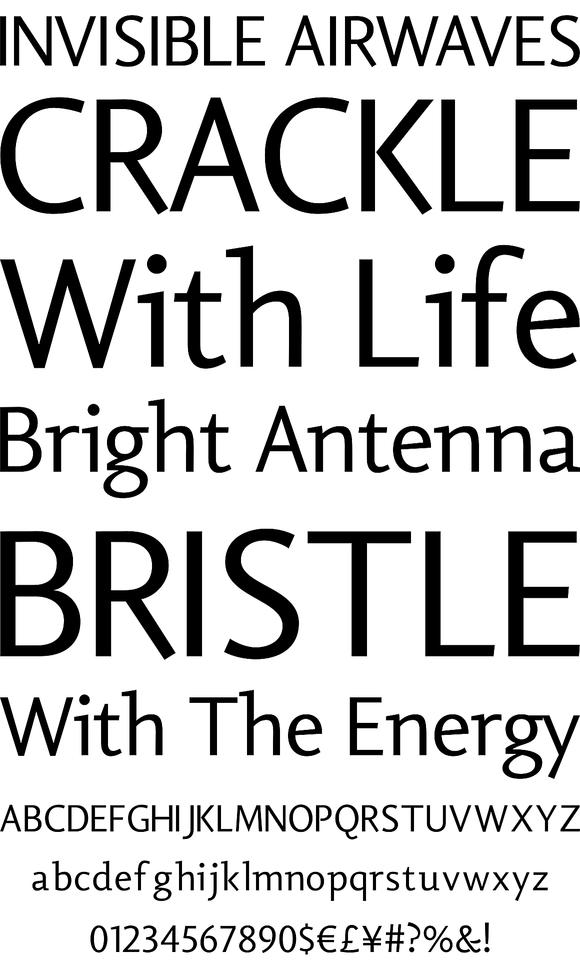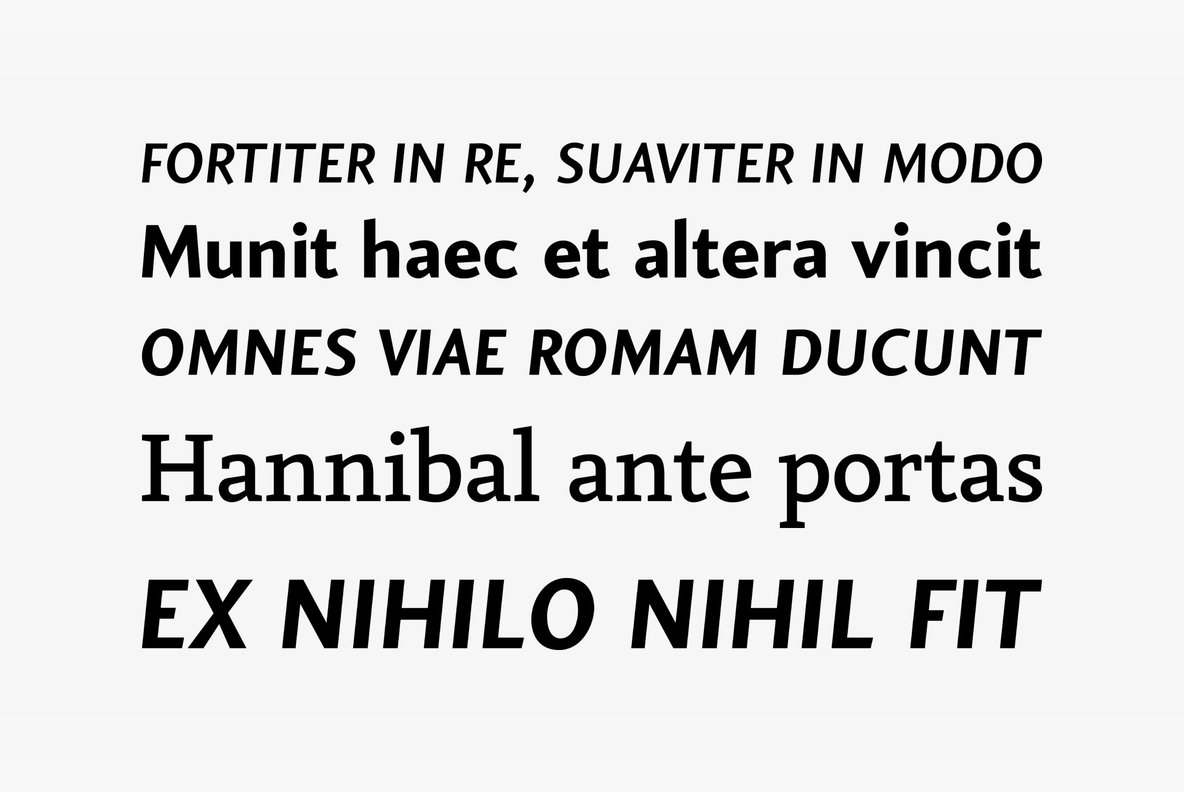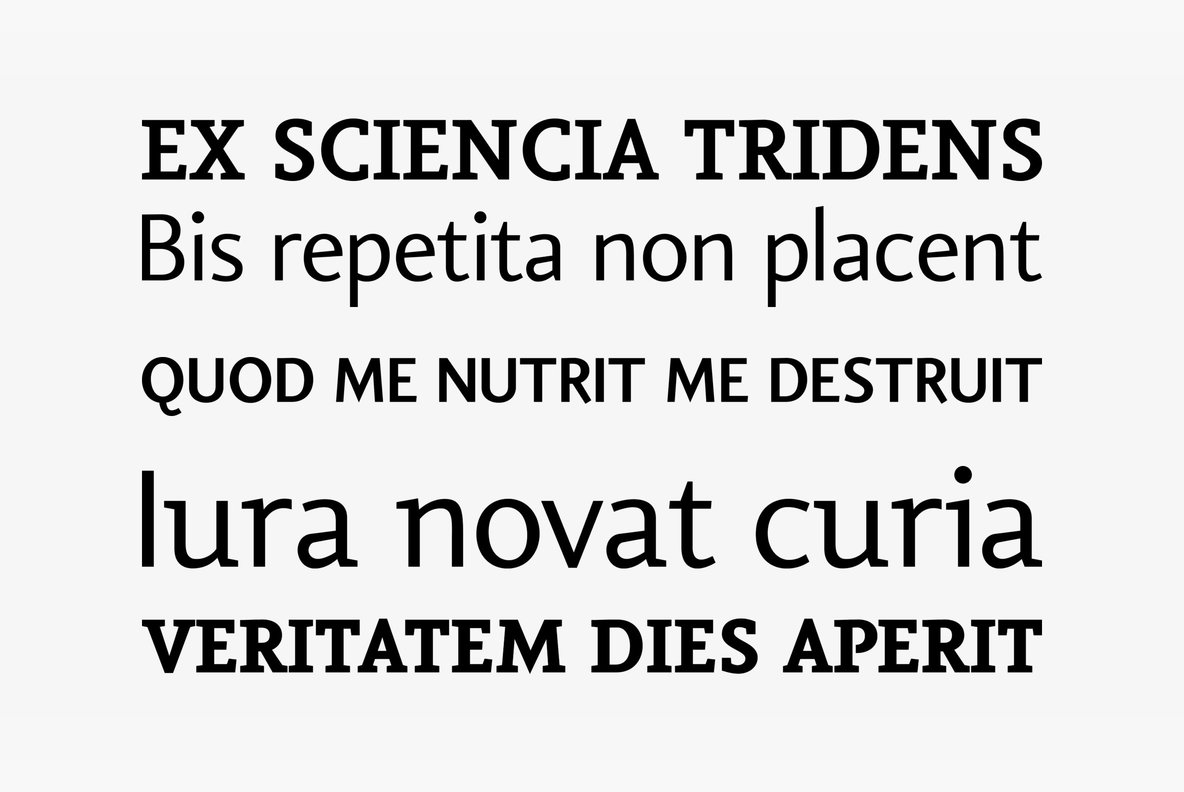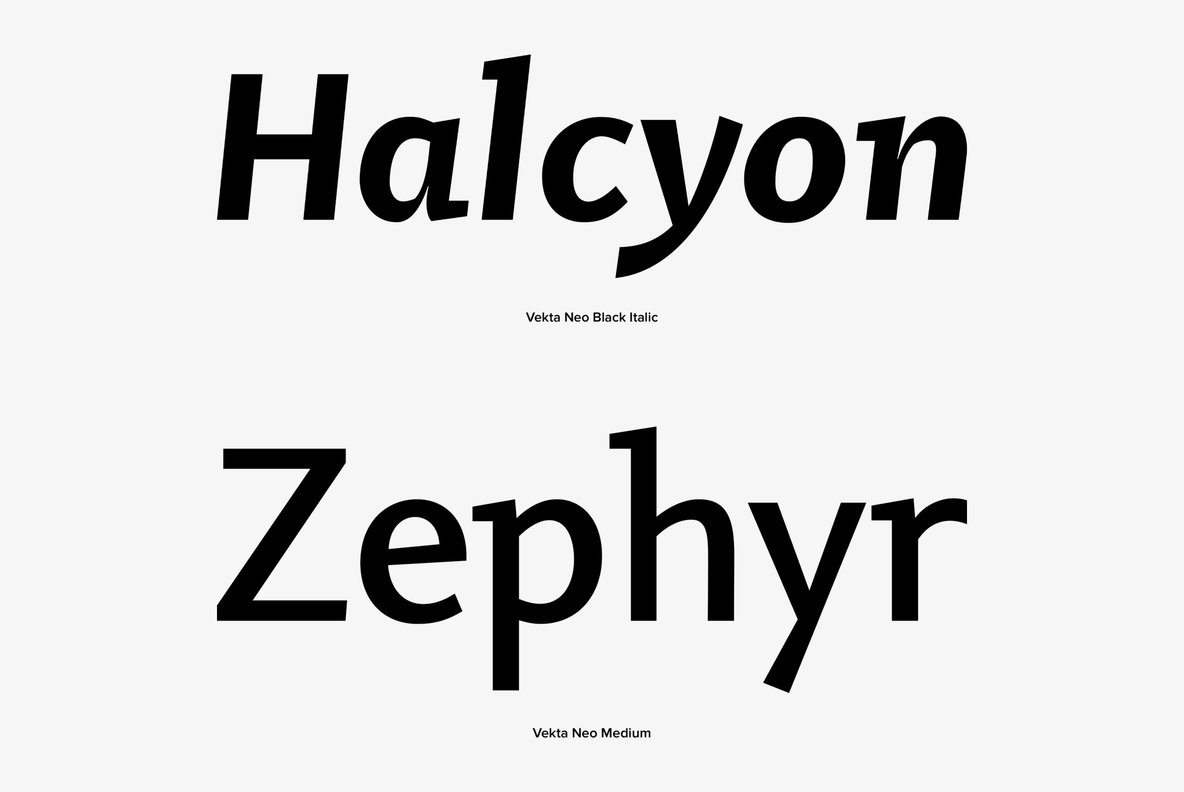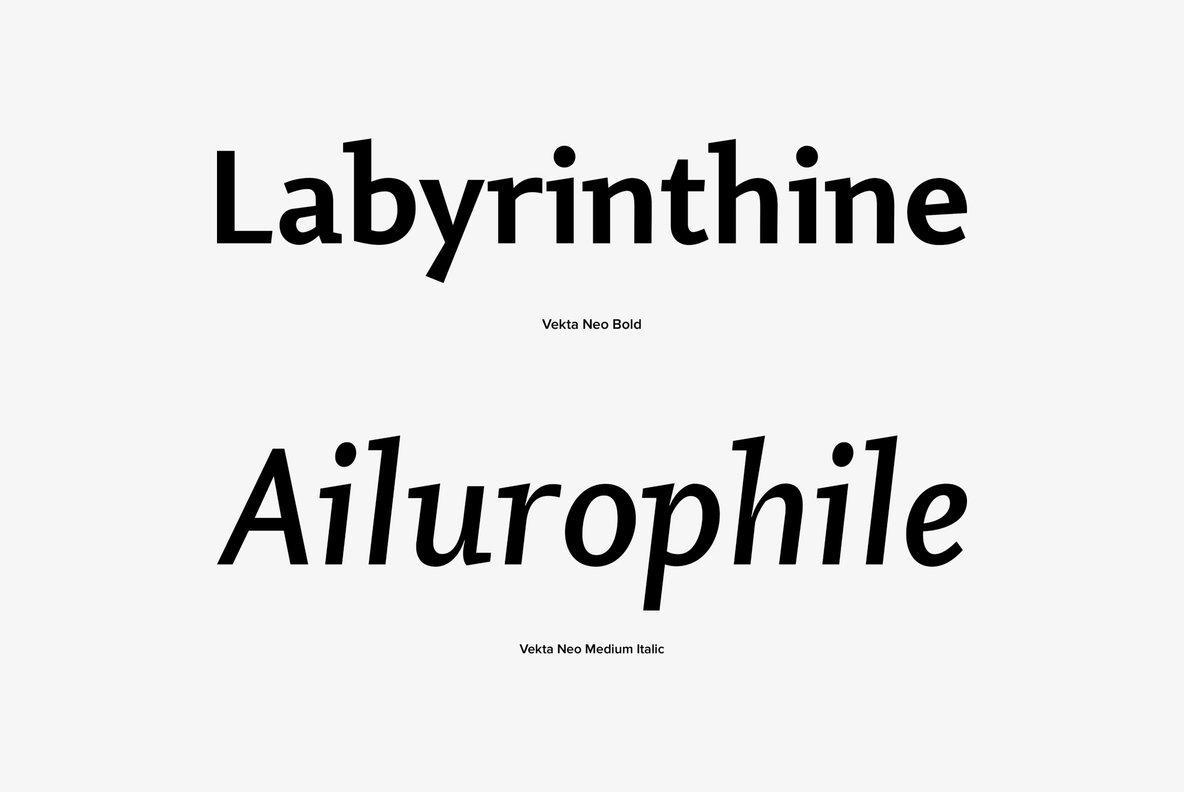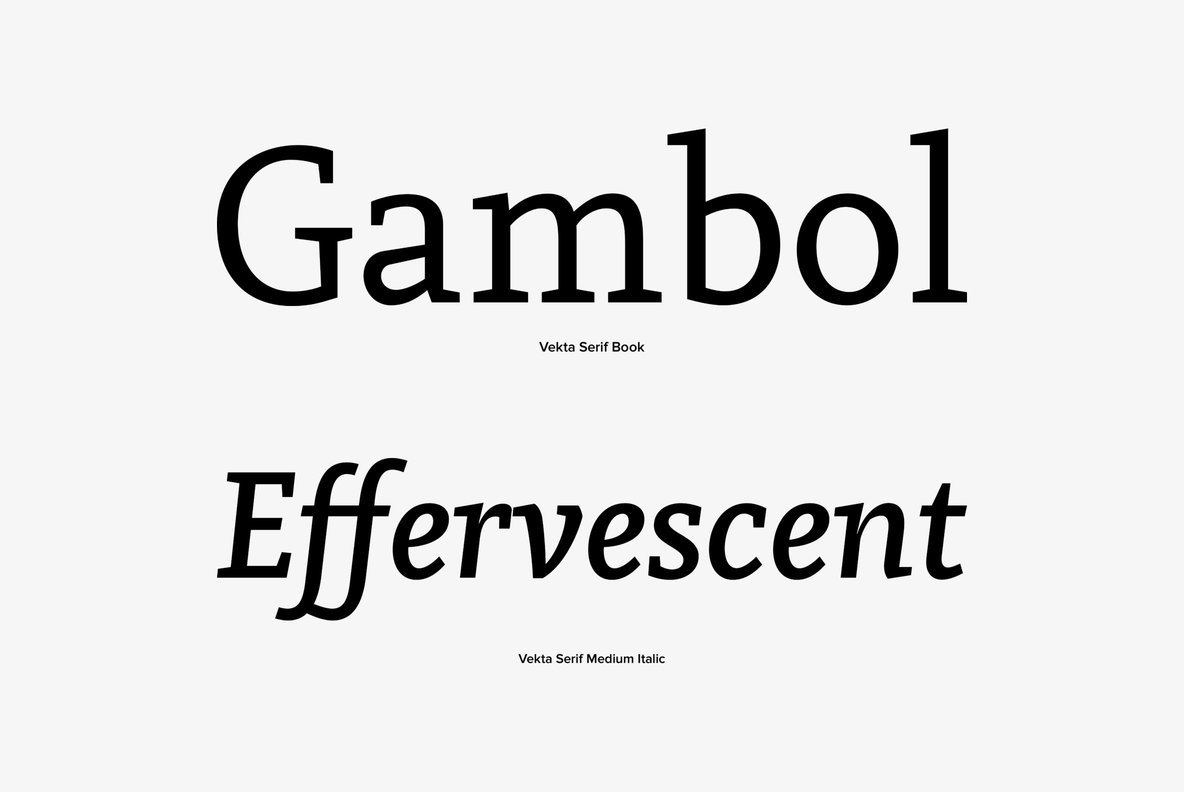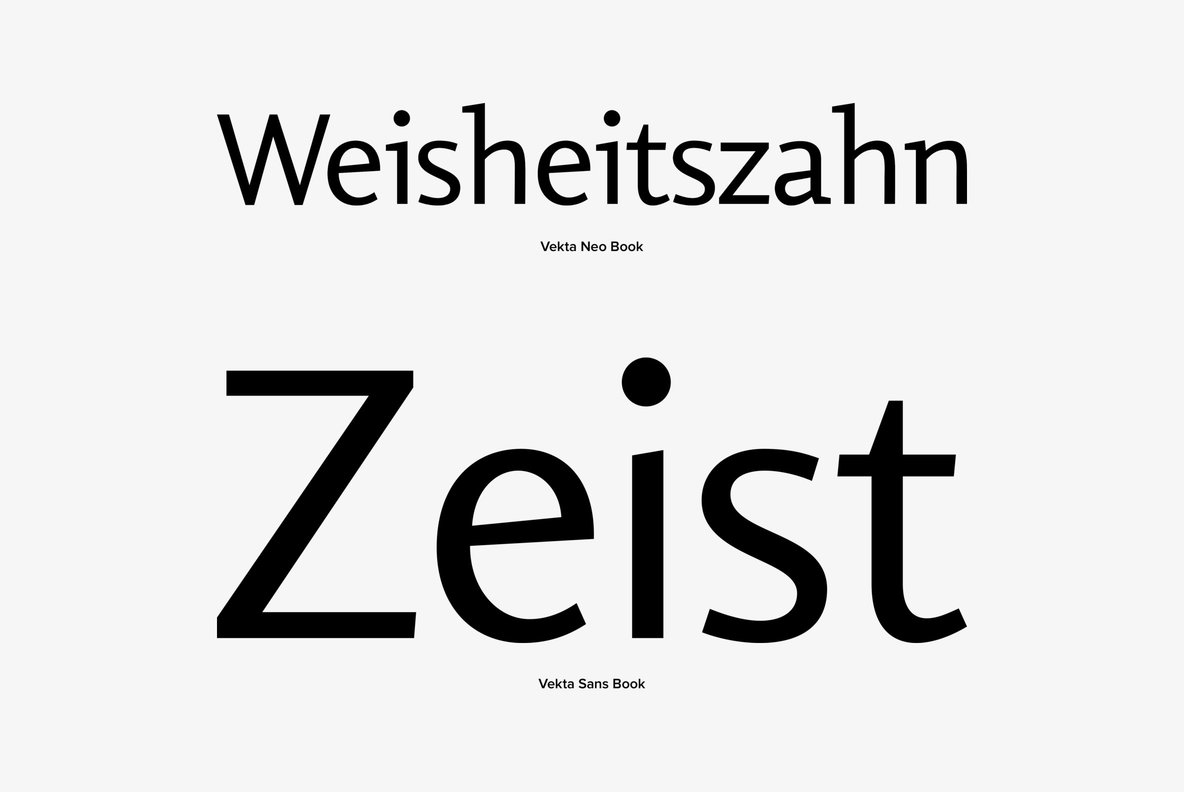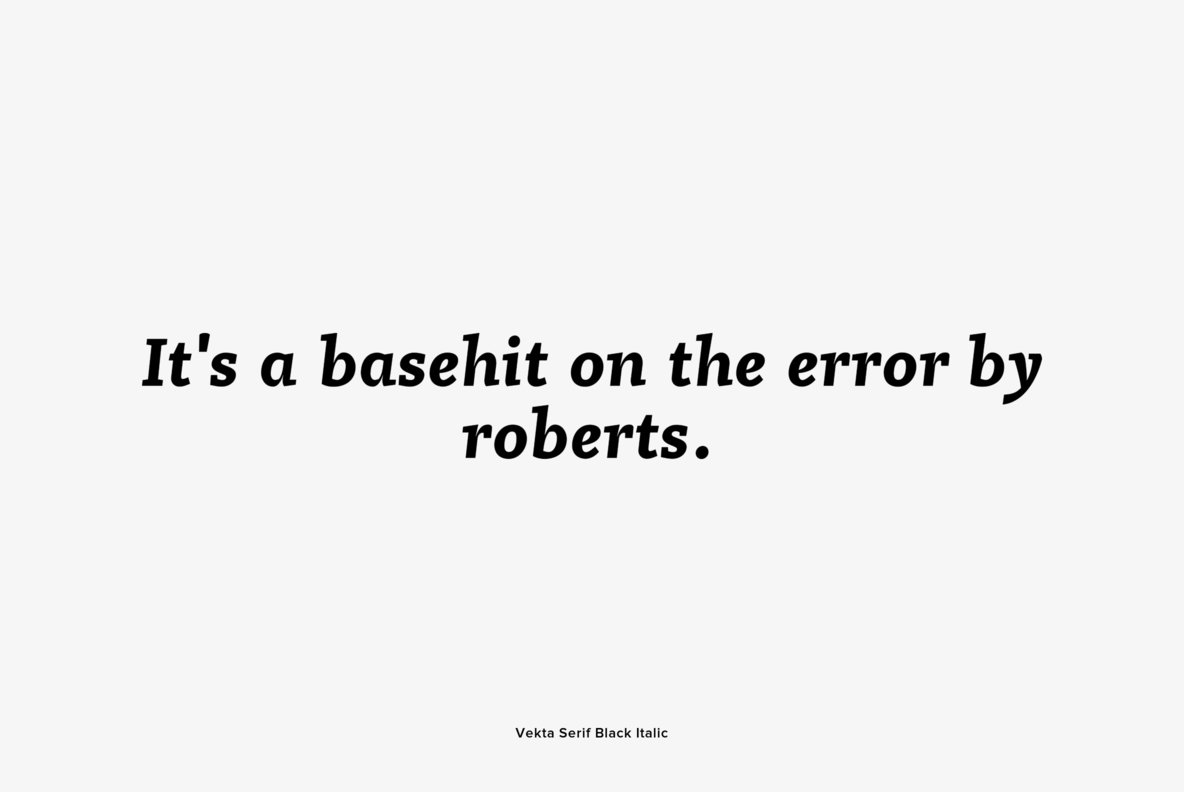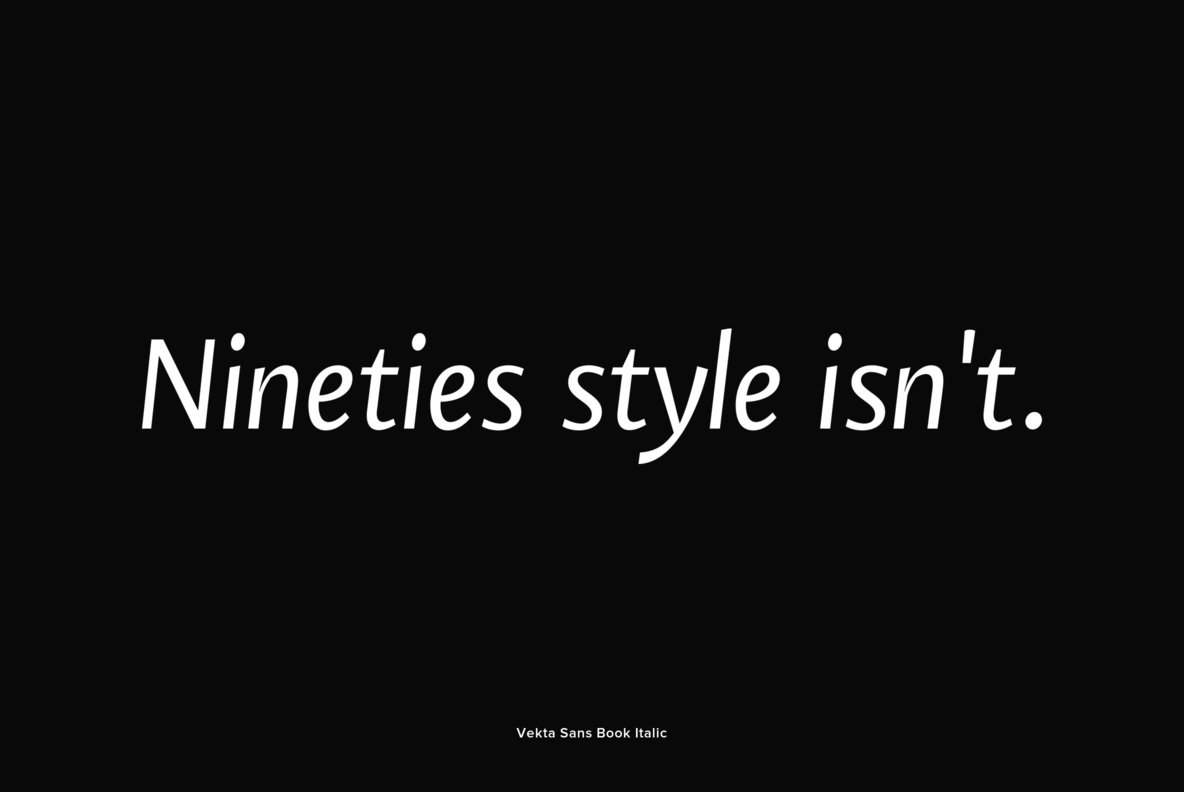
Vekta Complete
Foundry: Positype
The Vekta Type System is part of a larger, interconnected grouping of 3 families: Neo, Sans & Serif. The goal was to develop a family designed along a common skeleton and matrix that would allow for interchangeable usage along a cohesive visual system. It's About The Personality. Interchange type families to be as expressive as you want to be. Let the piece you are designing constrain your usage and not the typeface.